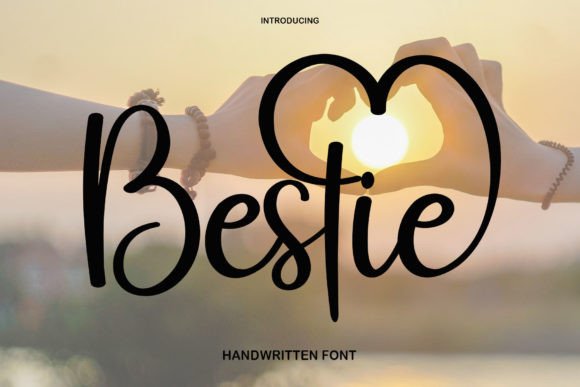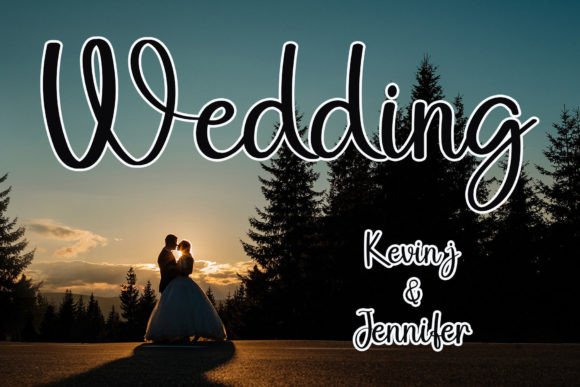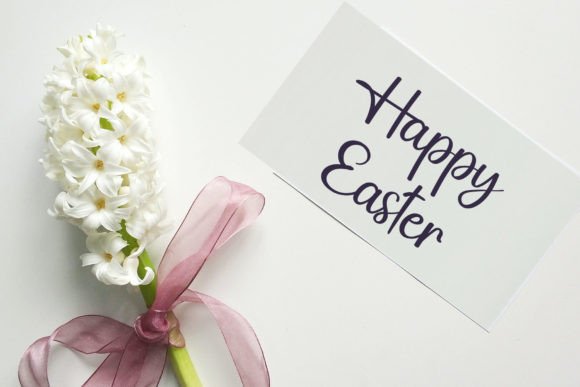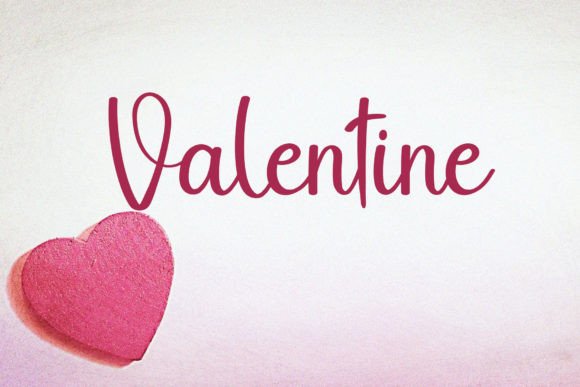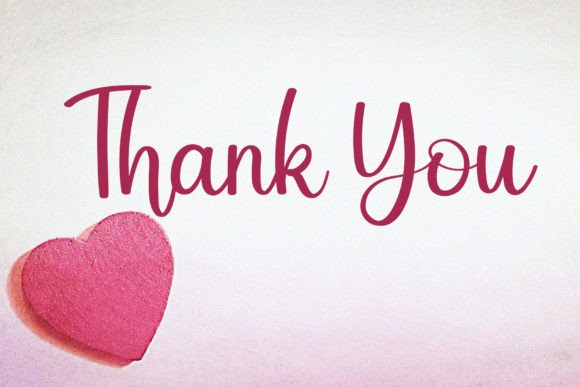
Bestie Font
Discover Bestie Font
Bestie is a trendy handwritten font that combines the timeless elegance of classic calligraphy with a fresh, modern twist. Carefully crafted to deliver a smooth, refined style, this font adds instant sophistication and character to your design projects.
Where to Use Bestie?
With its balanced and varied letterforms, Bestie is a versatile font that works beautifully across countless applications:
✅ Branding & Logos: Make your brand stand out with a stylish and personal touch.
✅ Wedding Invitations: Create romantic, elegant stationery that leaves a lasting impression.
✅ Social Media Graphics: Build a distinctive visual identity for Instagram, Facebook, or Pinterest.
✅ Product Packaging: Enhance labels, boxes, and tags with handwritten charm.
✅ Quotes & Wall Art: Design inspirational prints and decor pieces that feel warm and inviting.
✅ Greeting Cards: Perfect for birthdays, anniversaries, and thank you cards.
Why Choose Bestie?
Every curve and stroke in Bestie is inspired by classic calligraphy but designed for modern aesthetics. The font features:
✨ Smooth Flow: Elegant connections between letters for natural readability.
✨ Varied Baseline: Adds energy and movement to your text.
✨ High Versatility: Works great in both large headlines and smaller text.
Whether you’re designing for digital or print, Bestie adapts seamlessly to your project’s needs.
How Does Bestie Elevate Your Work?
Bestie exudes charm and refinement. The contemporary handwritten style makes your text feel personal and authentic while maintaining a professional, polished look.
Use Bestie to set the tone for luxury brands, fashion labels, modern wedding suites, or engaging social content. No matter the purpose, it delivers elegance with a creative edge.
If you’re looking for a handwritten font that feels both timeless and on-trend, Bestie is the perfect choice. Its graceful curves and chic details make it an essential addition to your font collection.